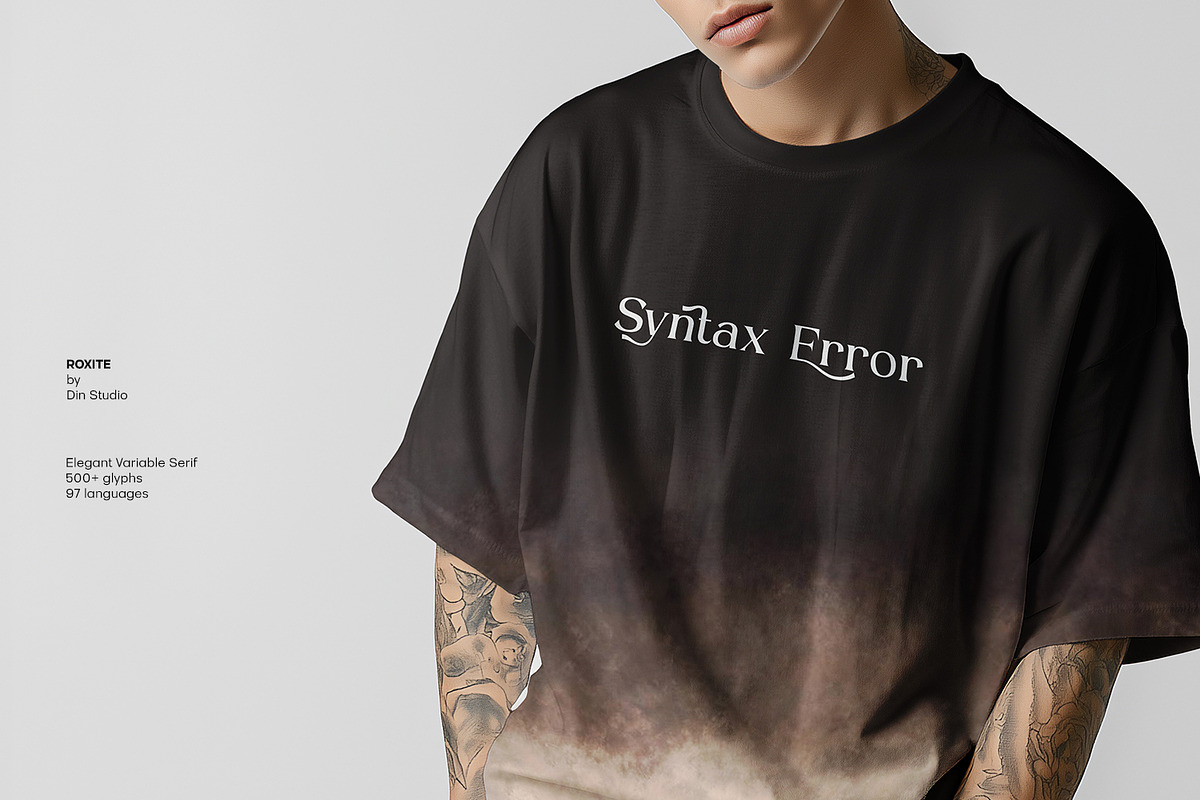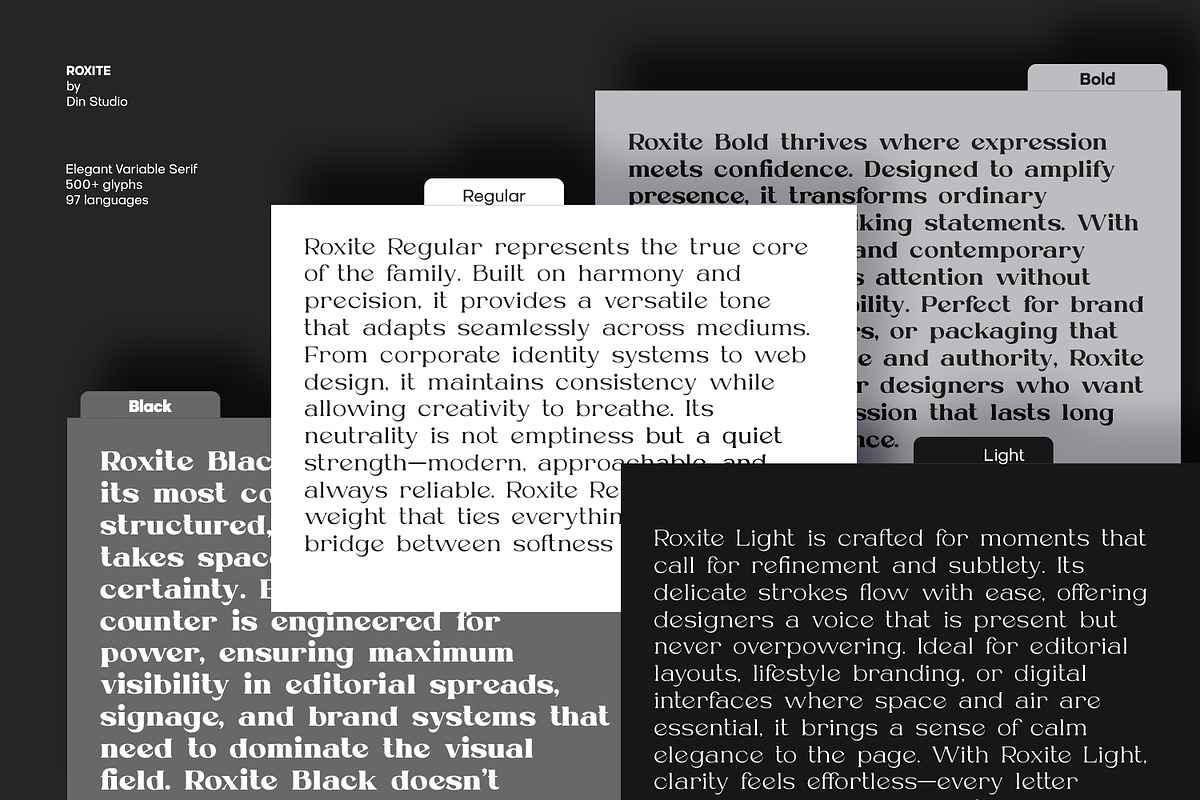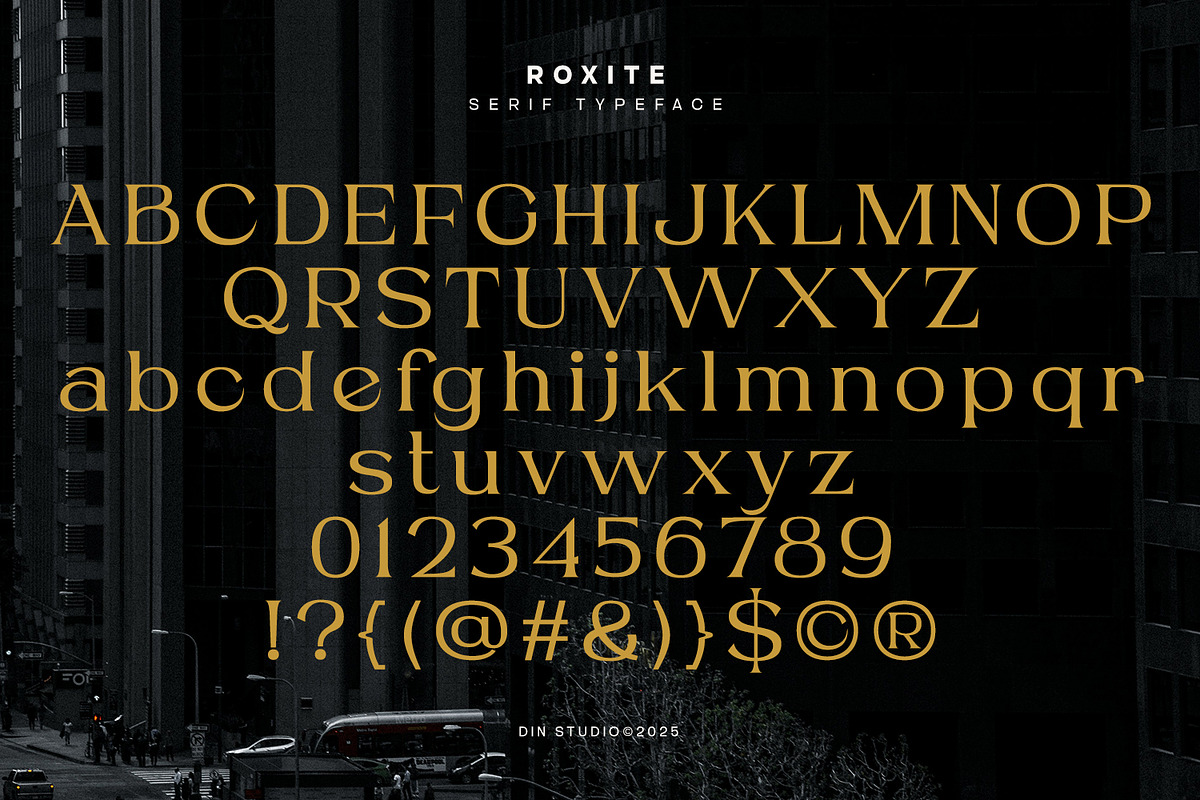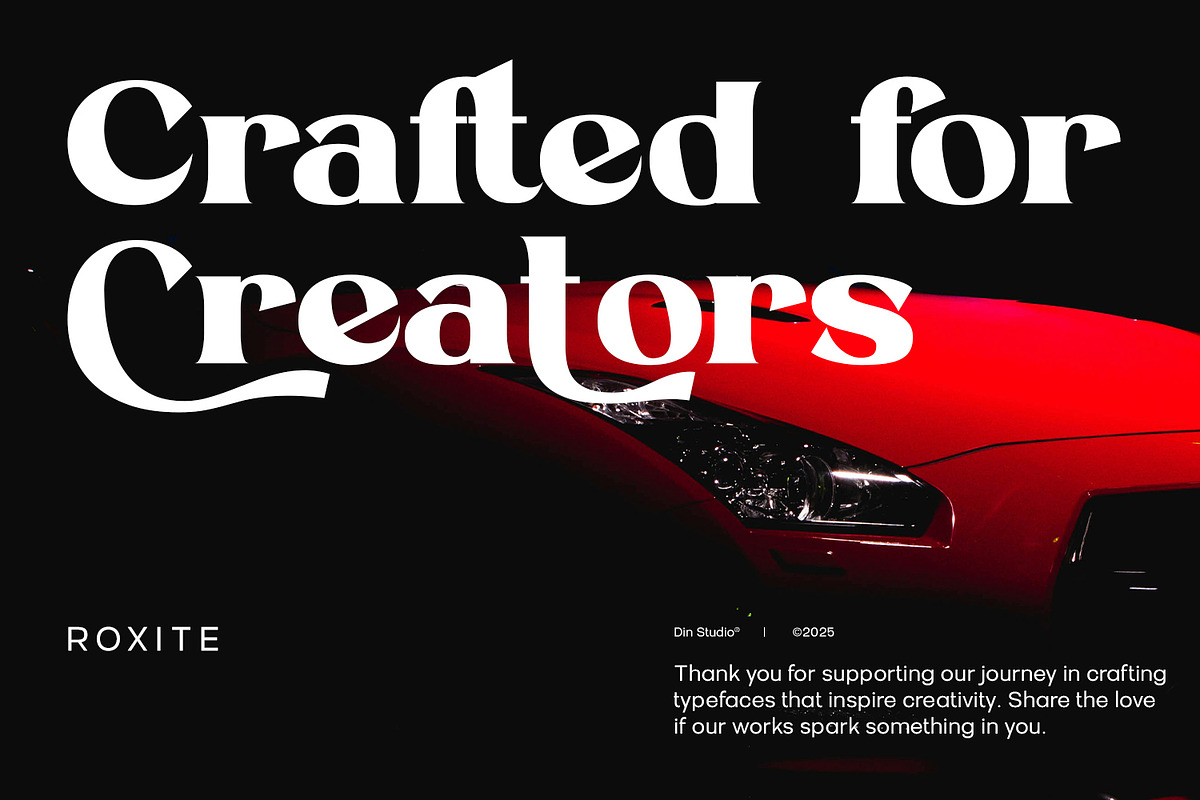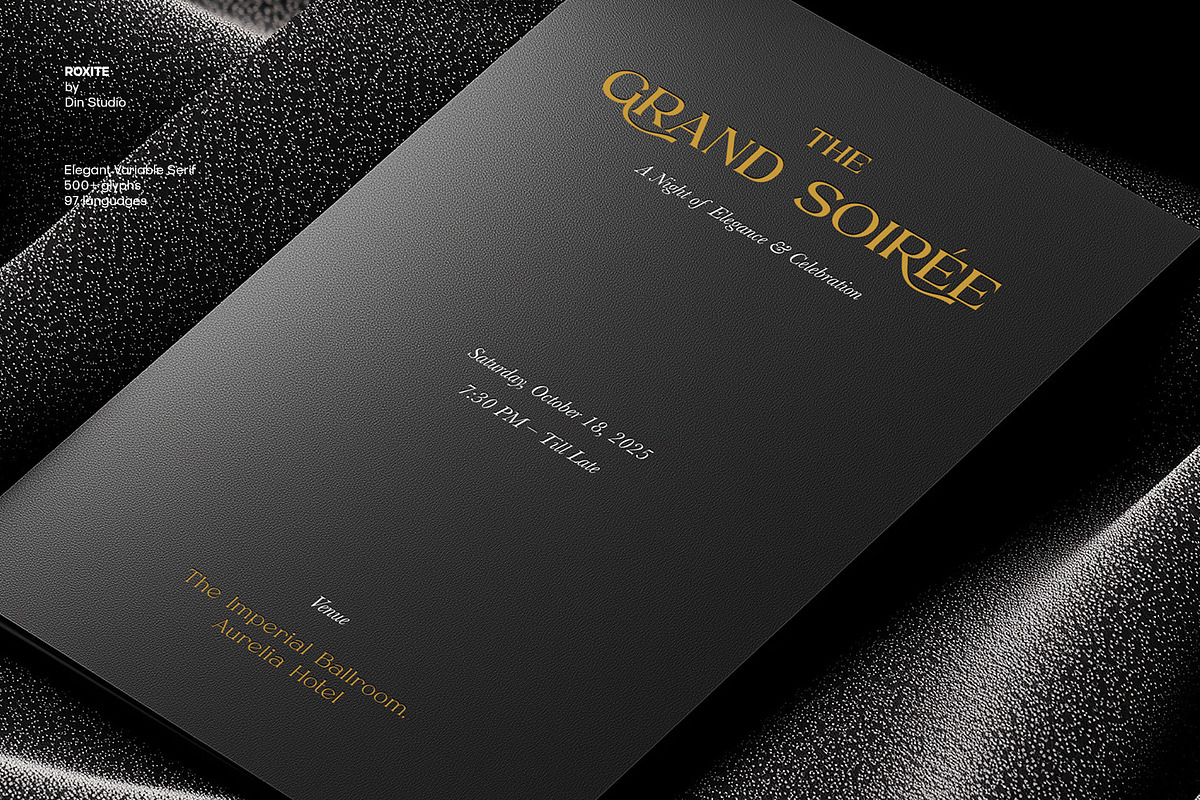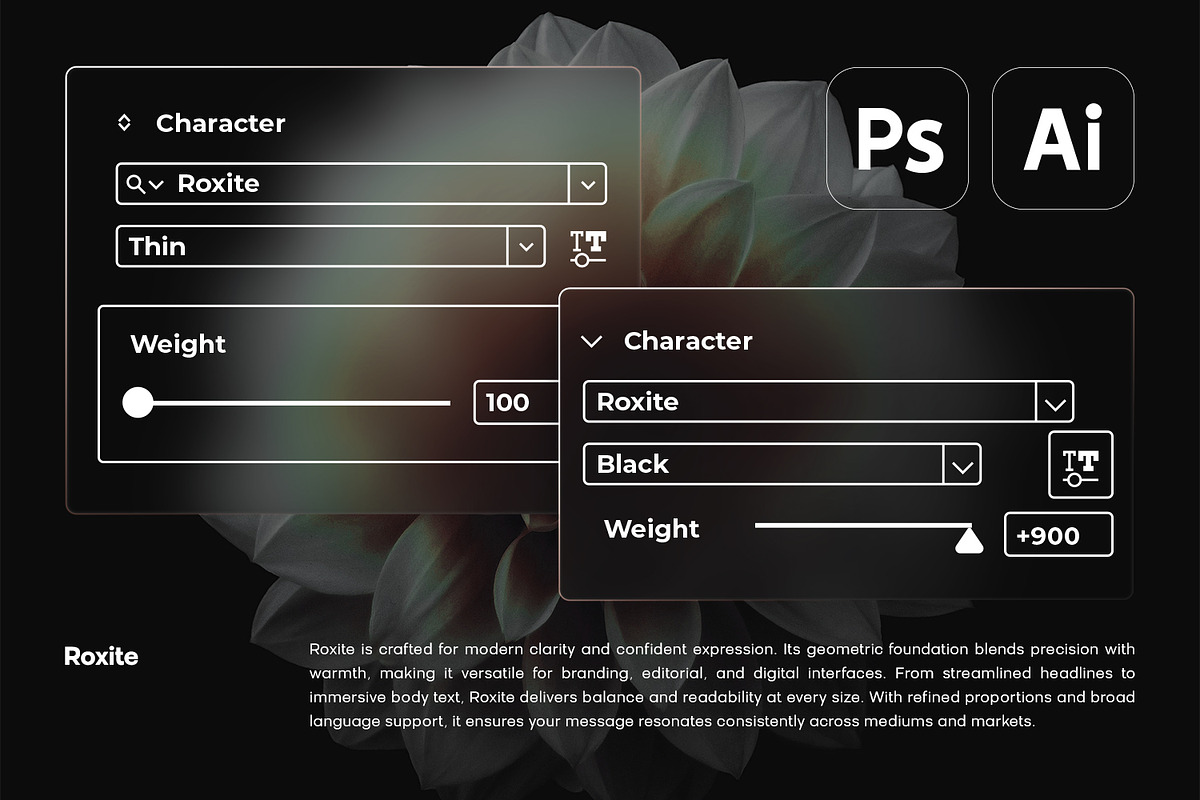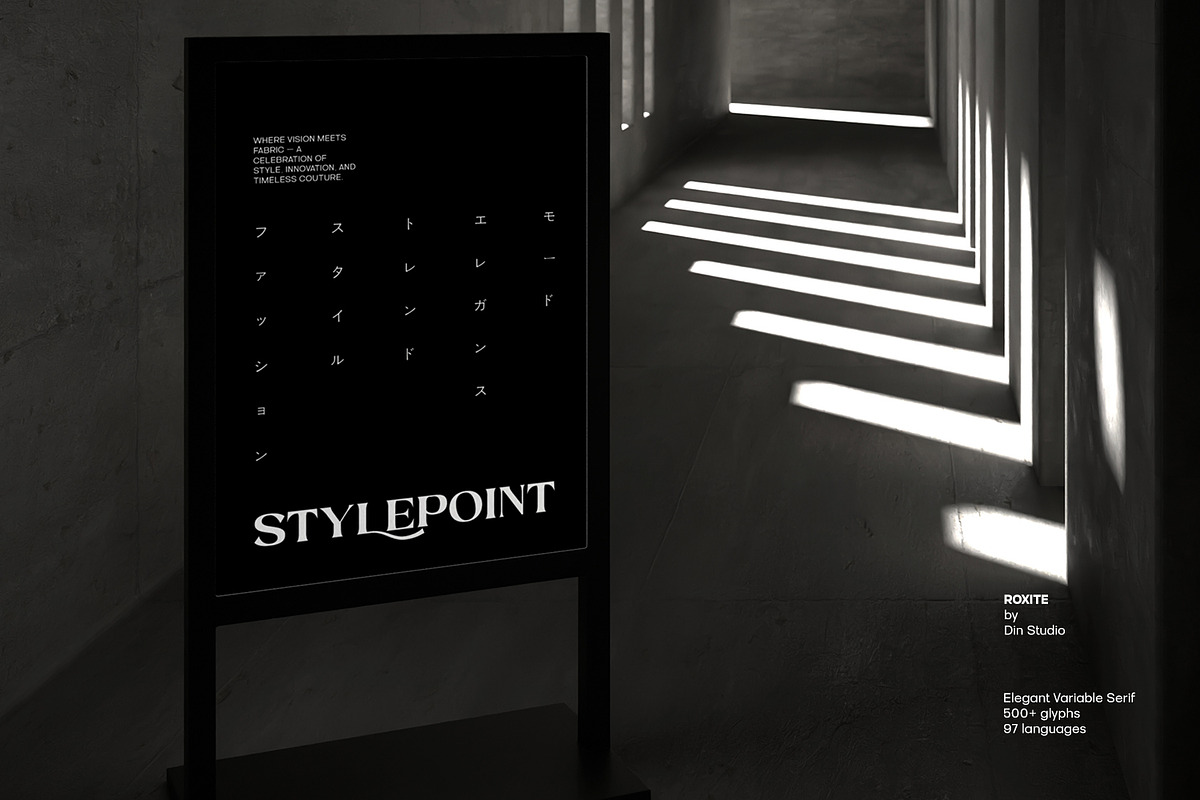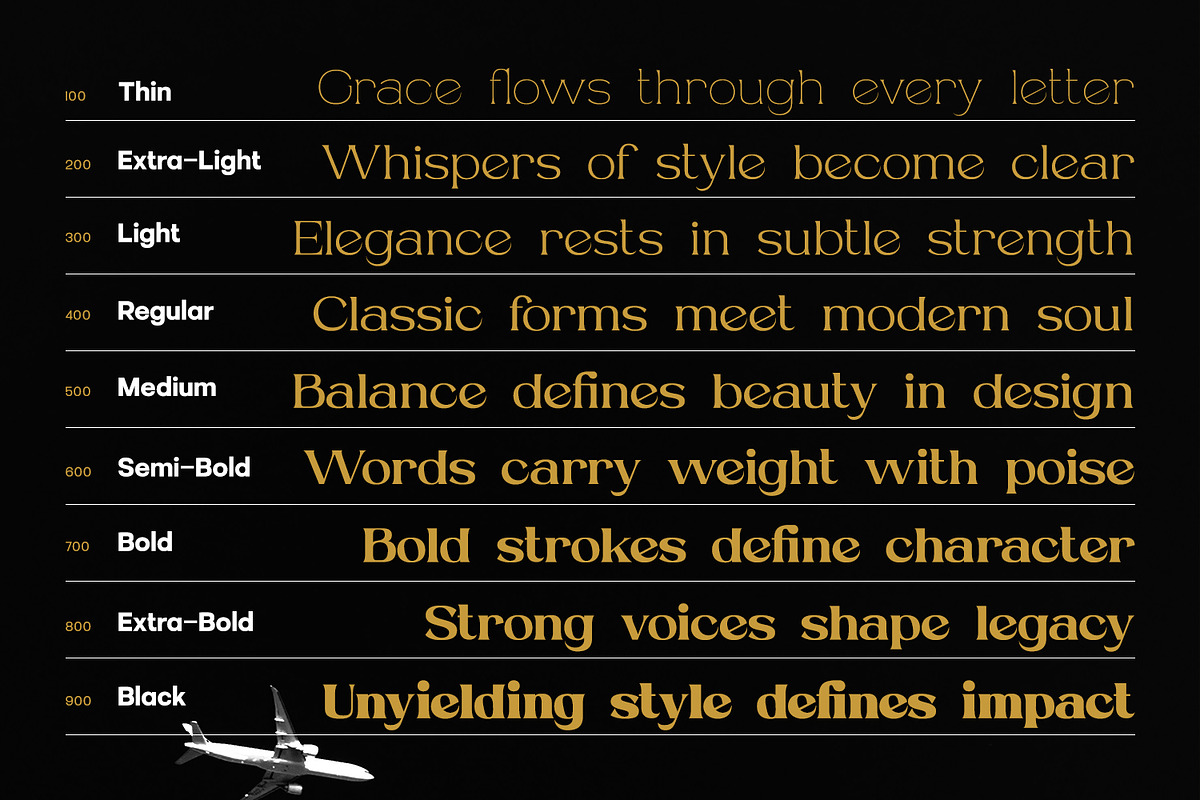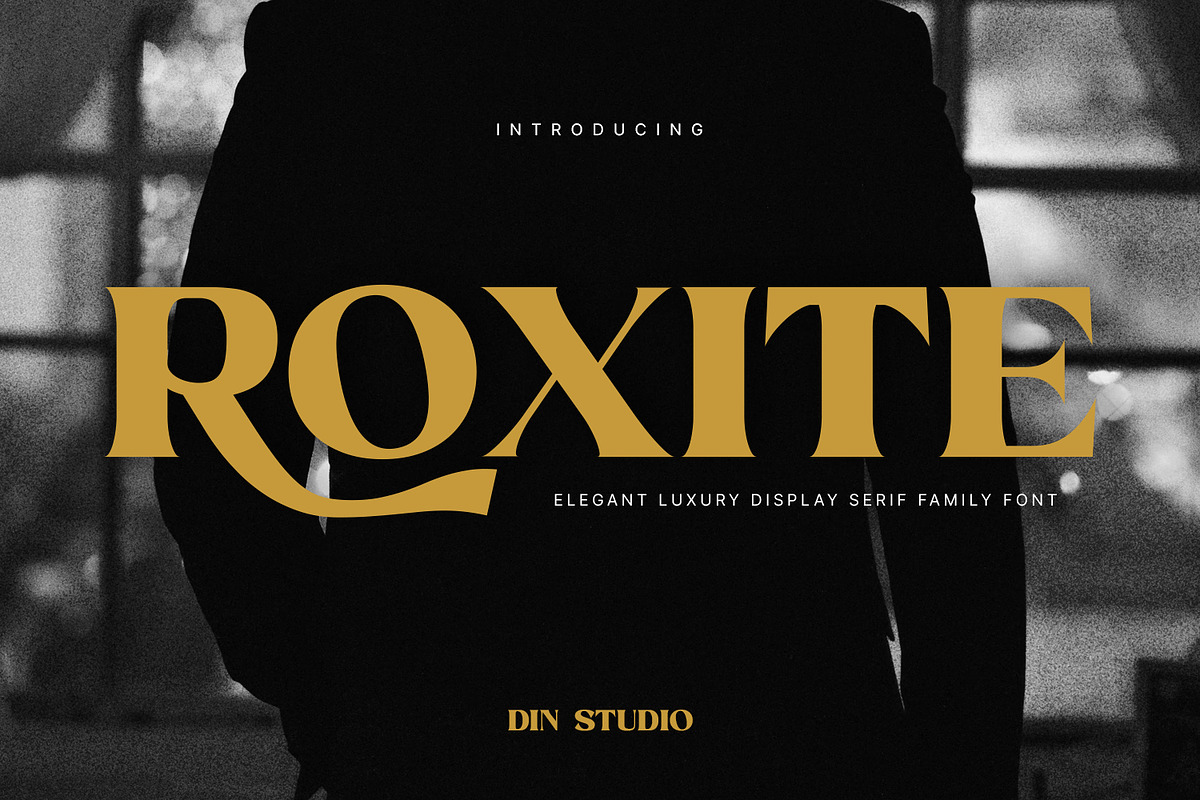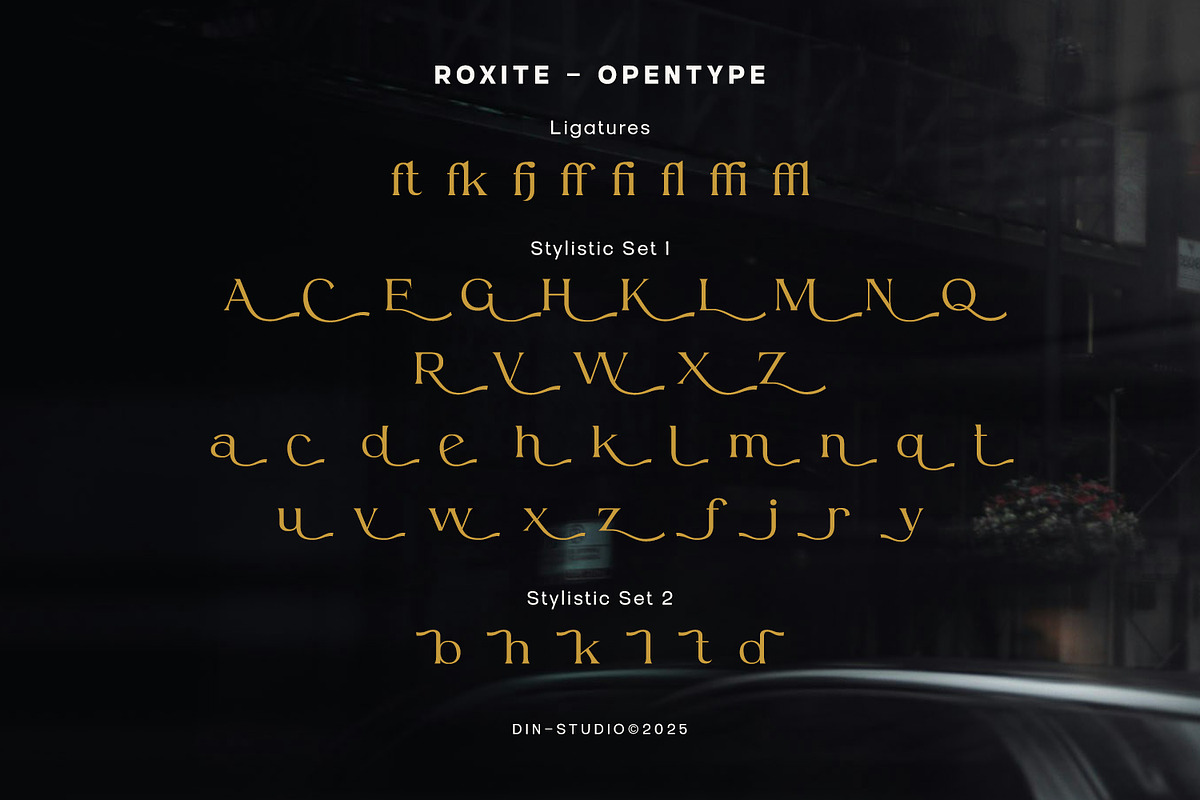
Roxite
Roxite is an elegant serif display font family. Every curve, serif, and detail in Roxite is meticulously crafted to reflect a sense of refinement and high-end style—making it the perfect choice for designers seeking to create a luxurious visual identity. With its graceful proportions and modern serif design, Roxite effortlessly balances classic beauty and contemporary aesthetics. The font family includes 9 weights and styles, allowing you to adapt it seamlessly to any creative need. In addition, enjoy the features here.
Roxite fits in branding, quotes, name cards, apparels, logos, posters, and many more designs. Find out more ways to use this font by taking a look at the font preview.